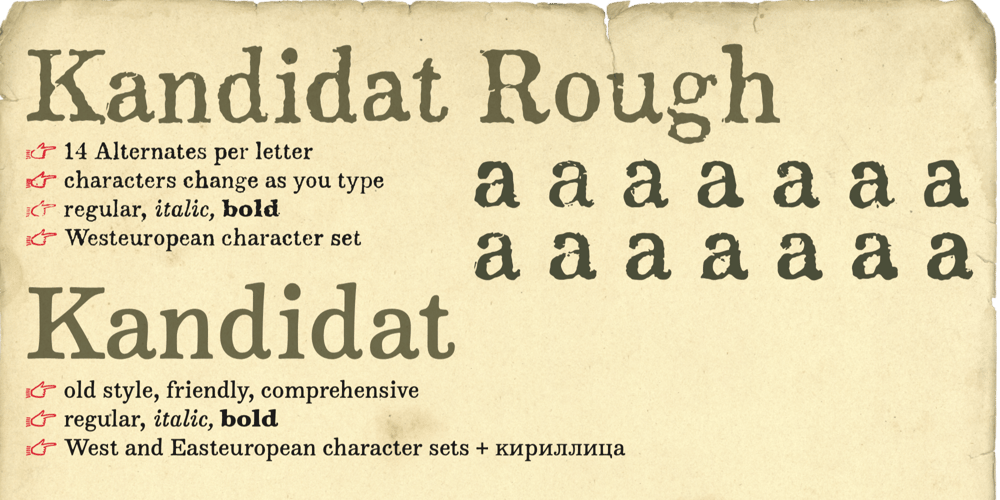
Kandidat Font Family was designed by Werner Eschmann and published by Fontroll. Kandidat contains 6 styles and family package options. Imagine being printer in the early nineteenth century, your stock isn’t the finest, your lead characters are worn out: Voilá Kandidat Rough.But wait, Kandidat isn’t the usual scan-an-old-book,-put-the-glyphs-in-a-font-and-you’re-done-font. Kandidat Rough has a variety of whopping 14 alternates for most characters. Our algorithm changes the letters automatically. All you have to do is turn on Contextual Alternates in your layout app. The algorithm is the best we’ve seen so far, and it’s so good that even same words appear in different forms. And should by coincidence words have the same glyphs, just assign a different Style Set to the first letter, and all other letters in the word will change as well (well, it depends a bit on your software). The mechanism isn’t perfect and maybe we stretched OpenType capabilities a bit over the top, but we yet haven’t seen any better routine for switching letters on the fly.Is it worth to mention that Kandidat Rough not only speaks English, but also German, French, Spanish, Dutch, Danish, Norwegian, Swedish, Croatian, Turkish and most likely some other languages? Maybe. To be sure whether your language is supported, this is the typeset of all letters: ABCDEFGHIJKLMNOPQRSTUVWXYZÀÁÂÃÄÅÆÇÈÉÊËÌÍÎÏÑÒÓÔÕÖØÙÚÛÜÝĆČĐĞ݌ފŸŽabcdefghijklmnopqrstuvwxyzàáâãäåæçèéêëìíîïñòóôõöøùúûüýÿćčđğıœşšžApart from that we also included the following punctuation and currency symbols:!”#$%&'()*+,-./:;<=>?@[]_{|}¡©«®°±¶·»¿×–—‘’‚“”„†•…‹›⁄≠☞ €¢$£¥This sums up to nearly 3000 glyphs per font, and we have three of them: Regular, Italic and Bold. All neatly kerned.All in all a great repertoire for even the most demanding book or advert jobs with a look of old times.And now imagine you are sick of the rugged print experience Kandidat Rough delivers: go for Kandidat. This is our Scotch-ish ancestor the Rough version was made from. A sturdy, friendly, round, warm friend from the beginning of the nineteenth century. A bit dark, maybe. You will like it.Kandidat has the aforementioned type set plus complete Baltics, Eastern Europe and Cyrillic. Plus a couple of gimmicks like fleurons, stars, circled numbers, arrows, and, and, and… Kandidat Regular additionally has small caps for Latin based scripts (not Cyrillic). The spick and span Kandidat font set also consists of Regular, Italic and Bold cuts. The bold cut is on the very bold side and can nicely be used for headings, whereas Italic is a great companion for Regular.It took us some time and trouble to finish this project, but after all we are very proud of our little feat and hope you will enjoy Kandidat as much as we do.Enjoy!